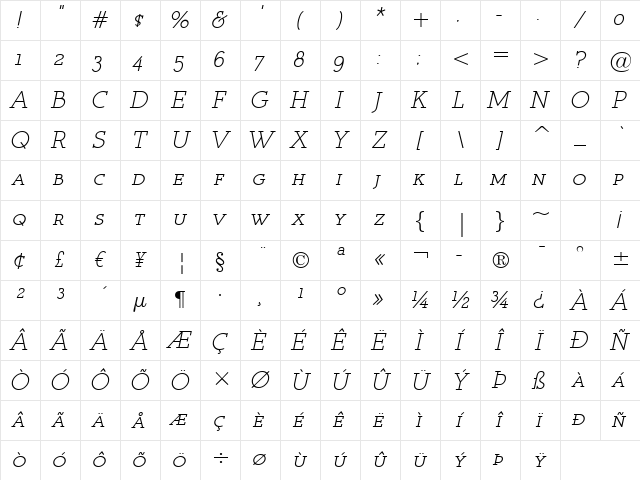
Complete Register Serif BTN SC Oblique glyph index. Displaying only characters natively supported by Register Serif BTN SC Oblique font.
Register Serif BTN SC carries the refined structure of traditional serif typography, with bracketed terminals and considered proportions that communicate credibility and craft. The slanted form adds forward momentum and visual energy.